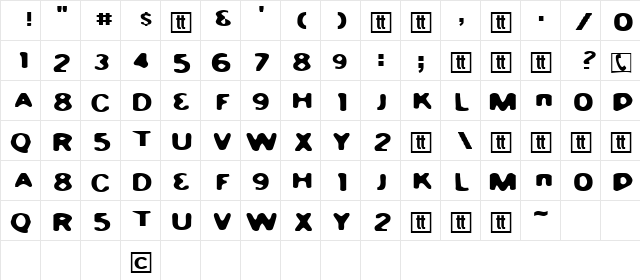
BurnYourPhone Regular
Design Context for BurnYourPhone Typeface
BurnYourPhone is a composed and adaptable typeface that performs quietly and consistently across a wide range of design contexts.